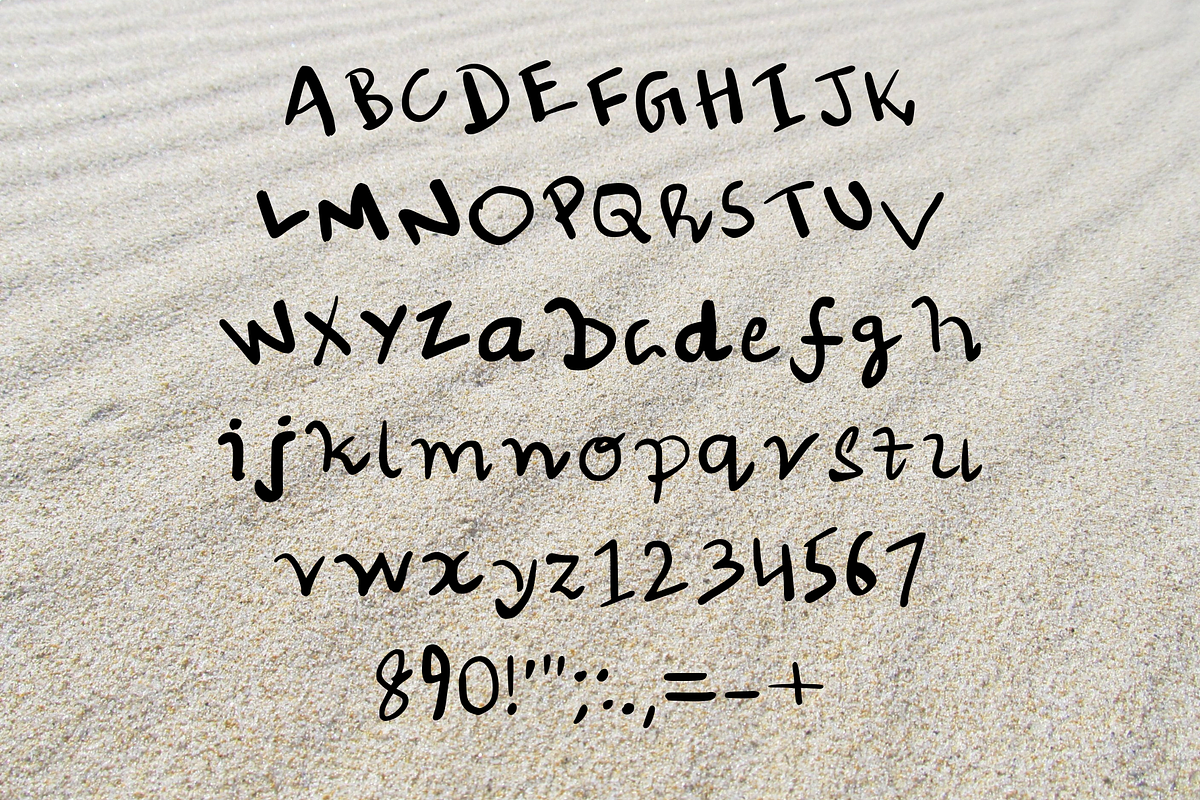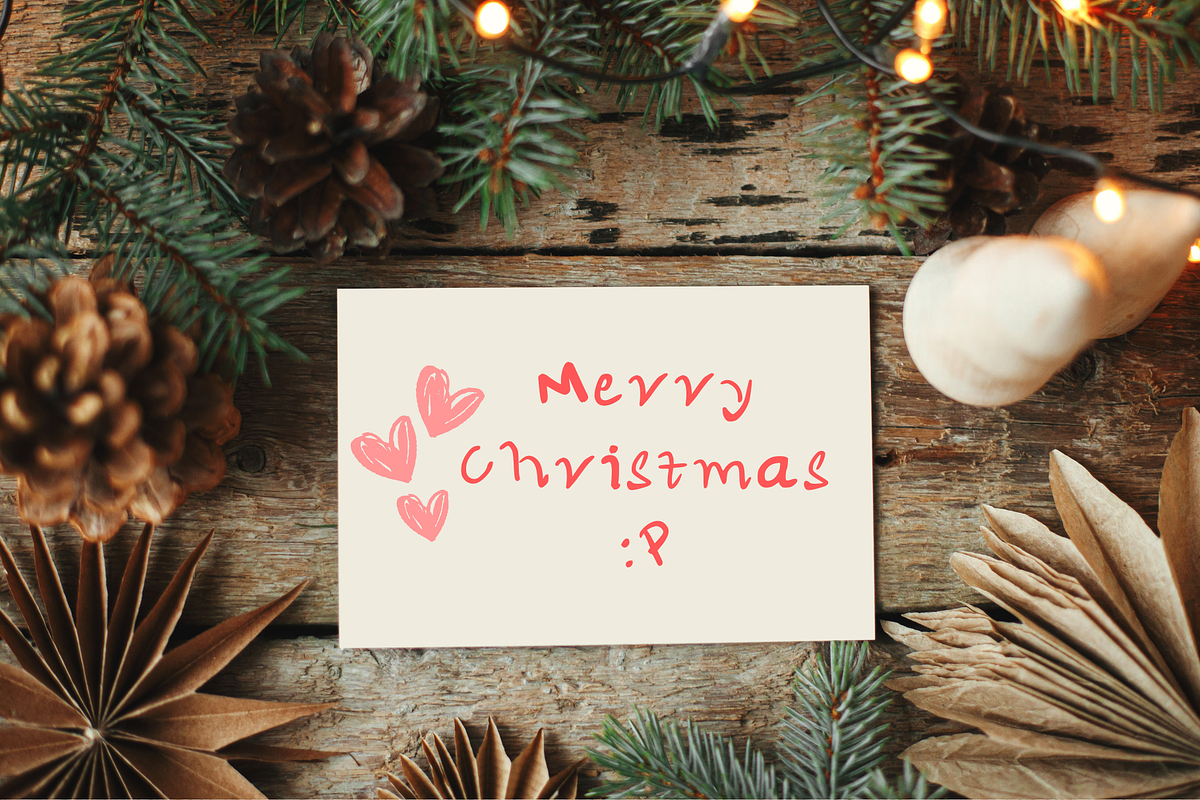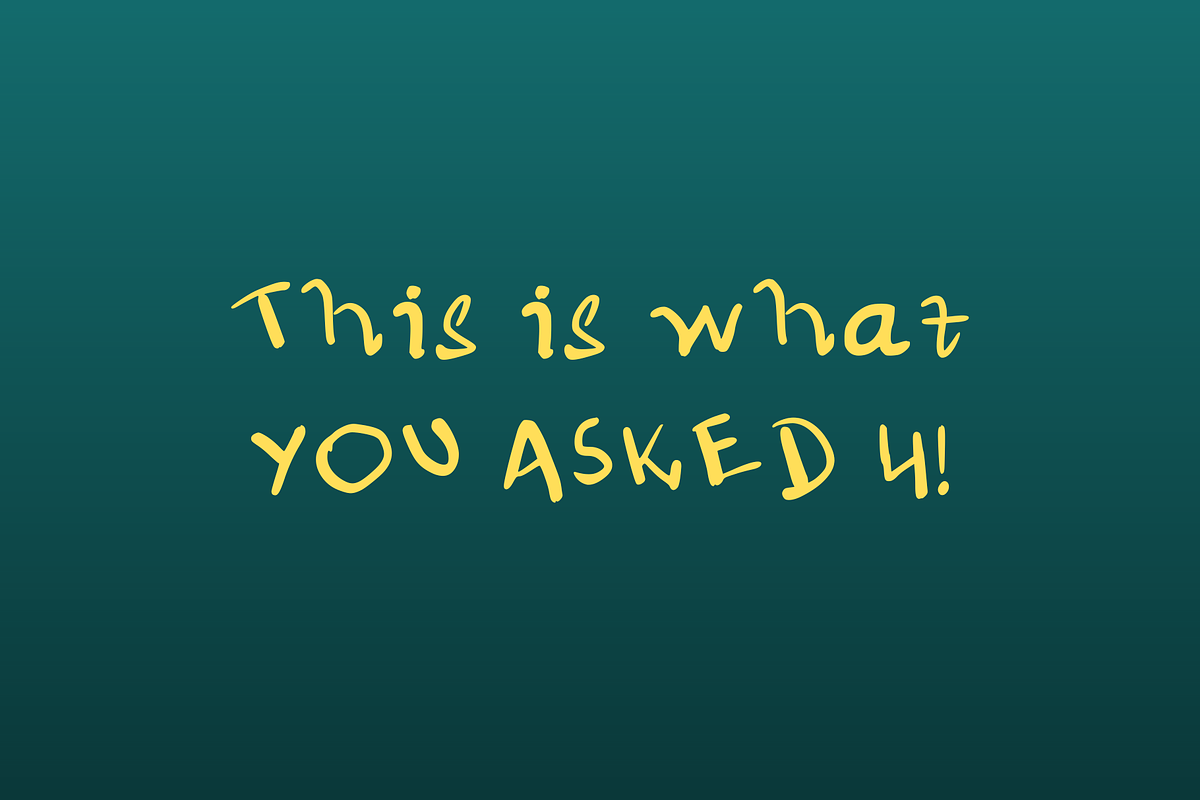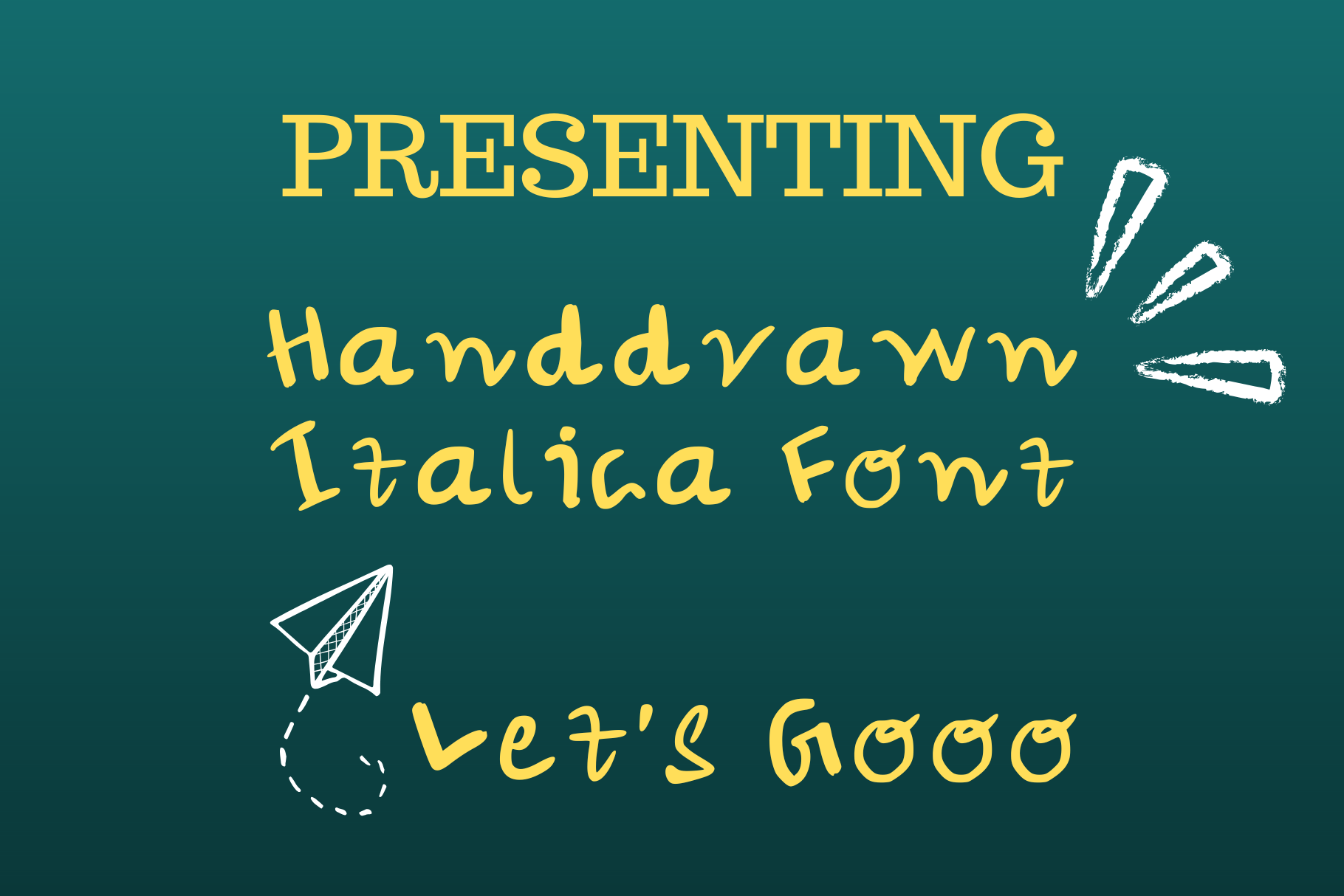
Italica Handwritten Mixed Font
This funky handwritten font is a fresh take on modern typography, blending intentional contrasts for a dynamic visual appeal. The capital letters are uniquely styled in an italicized slant, while the lowercase letters maintain a straight, upright posture. This deliberate mix of styles creates a distinctive, playful aesthetic perfect for digital projects like logos, social media posts, invitations, and more. The irregular strokes and natural flow give it a hand-drawn charm, making it ideal for designs that need a touch of personality and creativity. Whether crafting bold titles or whimsical text layouts, this font ensures your words stand out with a unique vibe!